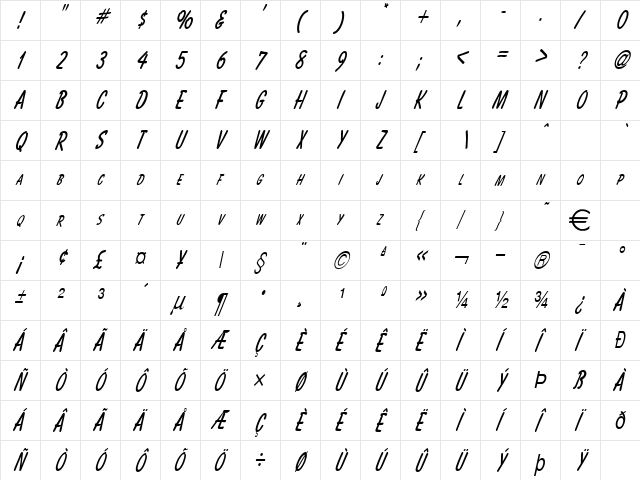
BassettThin Italic Font Preview
BassettThin Italic
Design Context for BassettThin Typeface
BassettThin is a composed and adaptable typeface that performs quietly and consistently across a wide range of design contexts. Its italic angle brings a sense of urgency and motion to the letterforms. Its slender proportions lend an understated elegance to any composition.
Pro Tip: Try BassettThin for annotation and caption copy alongside an upright companion — the contrast in angle creates a dynamic but ordered typographic system.